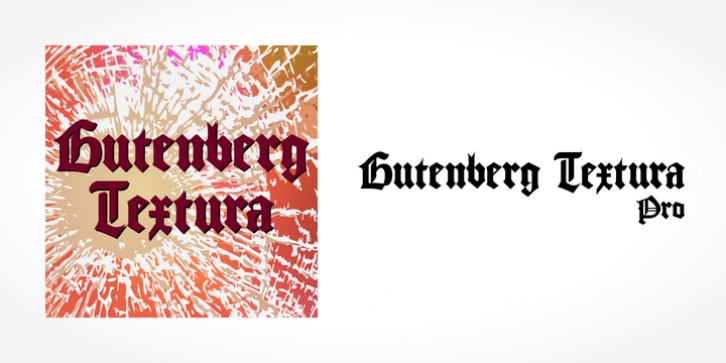
Blackletter is the classic “German” printing type. Starting in the 16th century and lasting well into the 20th century, most works in Germany were printed using blackletter types.
Today, blackletter fonts are mainly used decoratively. If you want to communicate a feeling of old-world quality or nostalgia, blackletter fonts are the preferred choice – use them on signs, in brochures or on invitation cards.
“Gutenberg Textura Pro” is a classic blackletter font of its epoch which inspires you to create vintage-looking designs with ease.